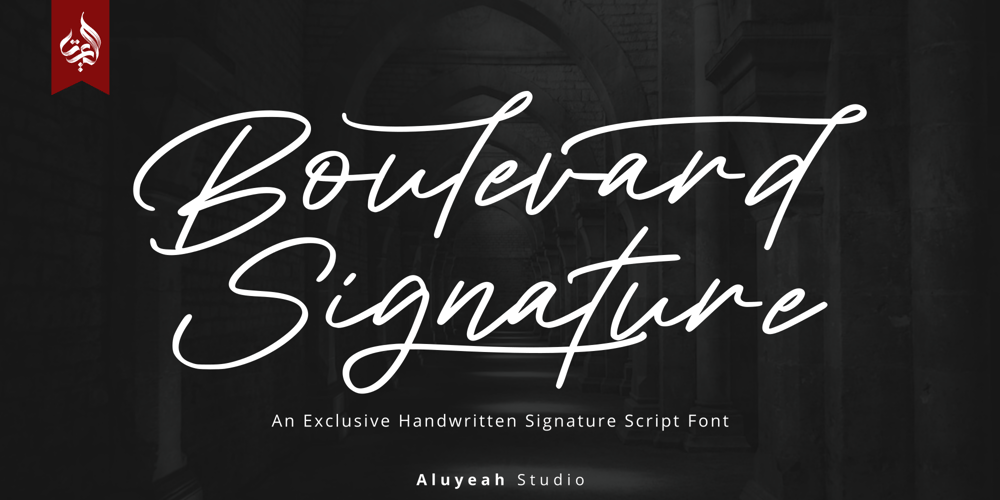
Al Boulevard Signature Font Family was designed by Linggar Sundoro and published by Aluyeah Studio. Al Boulevard Signature contains 1 styles and family package options. Hello Aluyeaholics!Boulevard Signature, an exclusive handwritten signature font. Coming with 100+ stunning and super easy to use alternates and ligatures. Very suitable for your wedding invitation, packaging, apps, magazine, headline, website, ads and all type of design project you have. Super Easy to Use alternates – You can easily call alternates using special combination like a.2 k.3 b.4 t.h c.c etc. To get results like the preview just type Boul.4evard.3 Sig.4nature